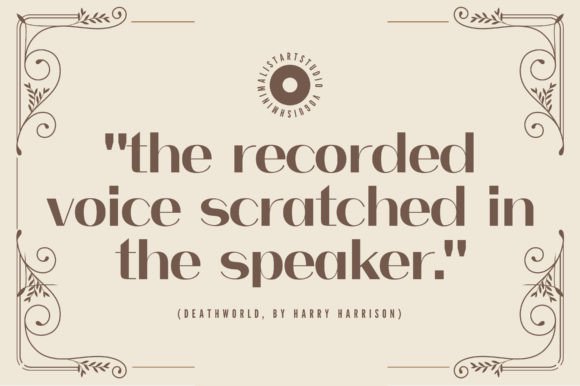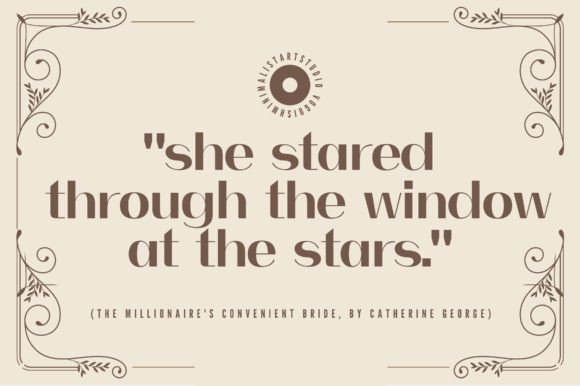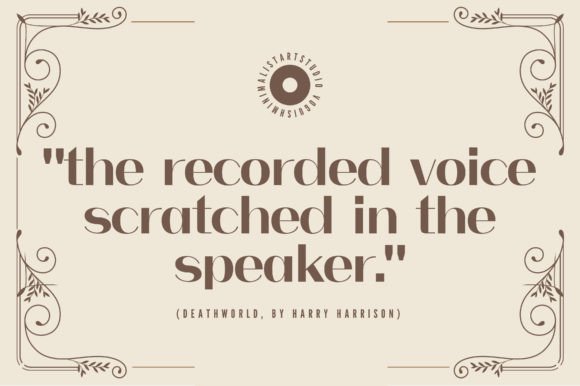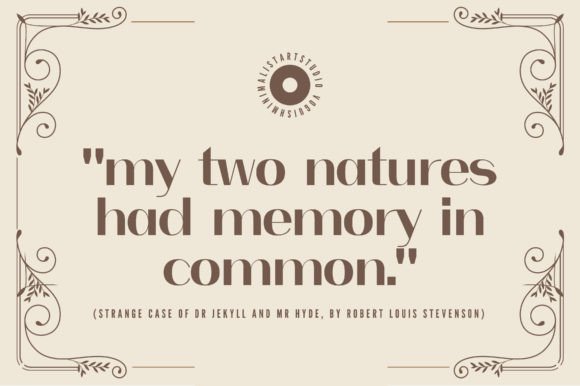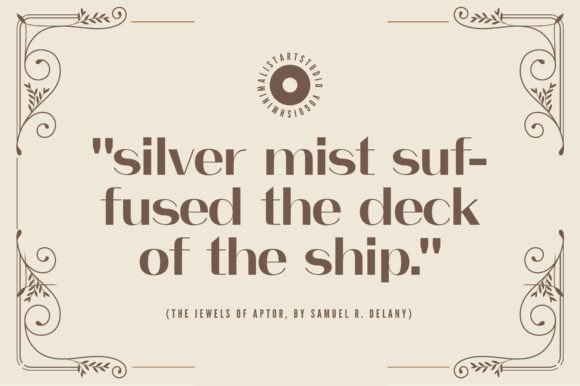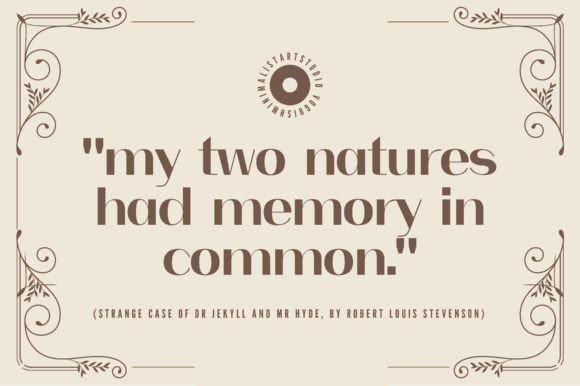
Aurora Font: Elevate Your Designs with Elegance and Sophistication
Introducing Aurora, a font that is sure to leave a lasting impression. This elegant and minimalist sans-serif font is perfect for those who want a clean and sophisticated look for their designs. With its sleek lines and elegant curves, Aurora exudes a chic and refined aesthetic that is sure to elevate any project.
A Clean and Sophisticated Look
Aurora’s minimalist design makes it an ideal choice for designers who want to create a simple yet impactful visual statement. The font’s sleek lines and elegant curves give it a refined look that is perfect for a wide range of design projects, from branding and packaging to digital media and print materials.
Whether you’re working on a luxury brand or a personal project, Aurora’s clean and sophisticated look is sure to impress. The font’s simplicity also makes it highly versatile, allowing it to be used in a variety of contexts without looking out of place.
The Power of Small Caps
One of the key features of Aurora is its small caps. These small caps are designed to add a subtle touch of elegance to your design, making it perfect for headlines and titles. The small caps are carefully crafted to maintain the same level of sophistication and refinement as the rest of the font, ensuring a cohesive look that is sure to impress.
Using small caps in your design can add a level of sophistication and nuance that is hard to achieve with standard font styles. Aurora’s small caps are the perfect way to add a touch of elegance to your design without overpowering the rest of the content.
Multilingual Support
In addition to its elegant design, Aurora also supports multiple languages, making it a versatile font that can be used in projects all around the world. This feature is particularly useful for designers who work on international projects or need to create content for a global audience.
With Aurora, you can create content in multiple languages without worrying about the font’s compatibility or legibility. This makes it an ideal choice for designers who need to create multilingual content, such as brochures, websites, or marketing materials.
A Minimalist Approach
Unlike other fonts, Aurora has no ligatures or alternative glyphs. This gives it a truly minimalistic look and feel, making it perfect for those who want a simple and timeless design. Without any unnecessary embellishments, Aurora is a font that is free from distractions, allowing the content to take center stage.
The minimalist approach of Aurora also makes it highly legible, even at small font sizes. This is particularly useful for designers who need to create content for digital media, such as websites, social media, or mobile apps.
Aurora is a font that is perfect for designers and crafters who want to create high-quality visual content. Whether you’re working on a personal project or a client’s brief, Aurora’s elegant and sophisticated design is sure to impress.
The font’s versatility and multilingual support make it an ideal choice for designers who work on a wide range of projects, from branding and packaging to digital media and print materials.
In conclusion, Aurora is a font that is sure to leave a lasting impression. Its elegant and minimalist design makes it perfect for designers who want to create a clean and sophisticated look for their designs. With its small caps, multilingual support, and minimalist approach, Aurora is a versatile font that can be used in a wide range of design projects.
Whether you’re a designer, crafter, or simply someone who appreciates good design, Aurora is a font that is sure to elevate your work and leave a lasting impression.